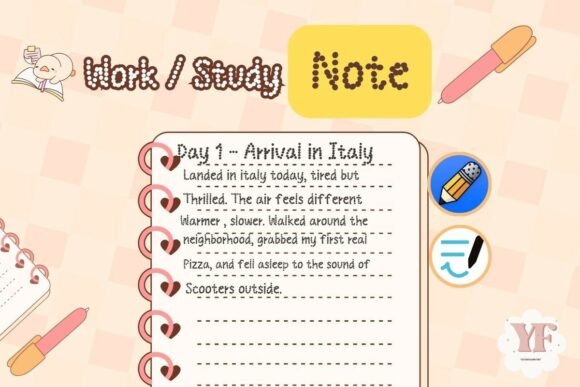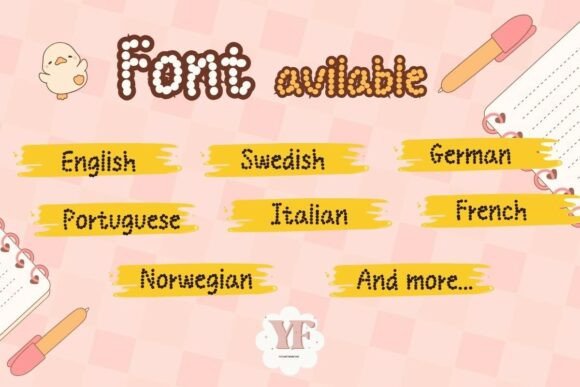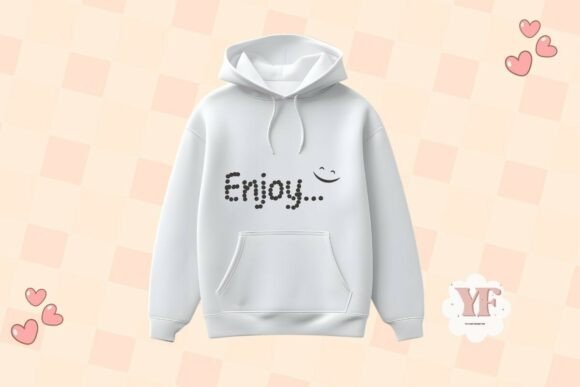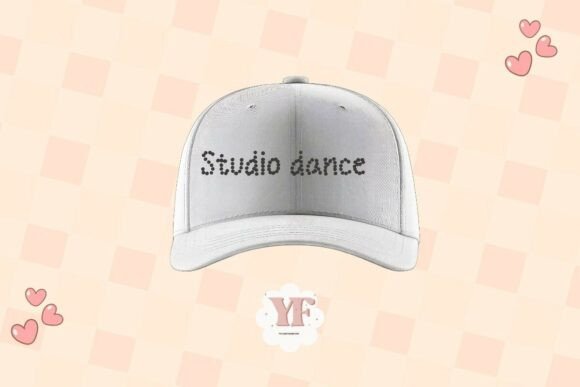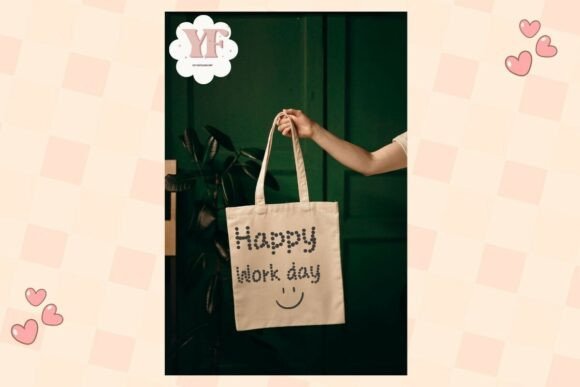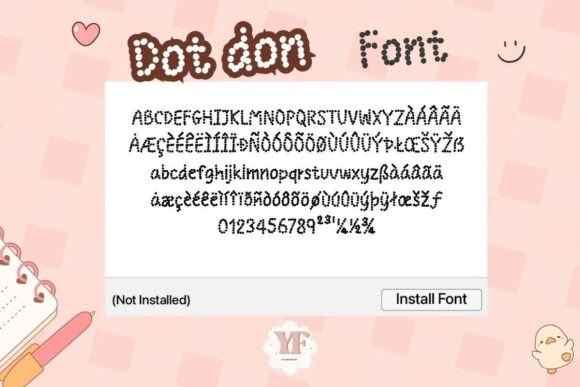
Introducing Dot Don Font: The Playful Charm of Handwritten Typography
In the world of typography, fonts play a crucial role in conveying emotions and setting the tone for various design projects. Among the numerous fonts available, Dot Don stands out as a unique and captivating handwriting font that has been gaining attention from designers and crafters alike. Inspired by the playful movement of dots following alphabet lines, Dot Don brings a fresh and artistic touch to modern handwriting typography.
The Design Philosophy Behind Dot Don
Dot Don’s design reflects the natural rhythm of hand-drawn lettering, where each stroke feels soft, friendly, and expressive. The font’s creator aimed to capture the essence of handwritten typography, where the imperfections and nuances of human handwriting make each letter unique. The result is a font that exudes warmth and personality, making it perfect for designs that require a personal touch.
The Unique Dotted Elements
One of the distinctive features of Dot Don is its use of dotted elements that create a guiding flow throughout the letters. These dots not only add a playful touch but also enhance the readability of the font. The dotted style gives the impression that each letter has been carefully traced by hand, making it suitable for projects that require a personal and warm feeling.
Versatility and Readability
Dot Don combines creativity with simplicity, making it an excellent choice for various design projects. The font’s playful charm and lively appearance make it ideal for:
• Branding: Add a personal touch to your brand’s identity with Dot Don’s unique and memorable style.
• Invitations: Create beautiful and eye-catching invitations for special occasions, such as weddings, birthdays, and baby showers.
• Social Media: Use Dot Don to create engaging and artistic social media posts that stand out from the crowd.
• Creative Projects: Add a touch of whimsy and creativity to your art journals, scrapbooking, and other craft projects.
What Makes Dot Don Special?
Dot Don’s distinctive dotted style sets it apart from other handwriting fonts. The font’s design captures a personal and warm feeling, making it perfect for designers and crafters who want to add a human touch to their projects. With Dot Don, you can:
• Create unique and eye-catching designs that reflect your personality.
• Add a touch of playfulness and whimsy to your projects.
• Enhance the readability and legibility of your text.
Tips for Using Dot Don Effectively
To get the most out of Dot Don, consider the following tips:
• Pair Dot Don with other fonts to create a unique and visually appealing combination.
• Experiment with different colors and textures to add depth and interest to your designs.
• Use Dot Don for headings, titles, and quotes to add a touch of personality to your text.
Dot Don is a unique and captivating handwriting font that brings a fresh and artistic touch to modern typography. With its playful dotted style, natural rhythm, and soft strokes, Dot Don is perfect for designers and crafters who want to add a personal and warm feeling to their projects. Whether you’re creating branding materials, invitations, social media posts, or craft projects, Dot Don is an excellent choice for anyone looking to add a touch of whimsy and creativity to their designs.